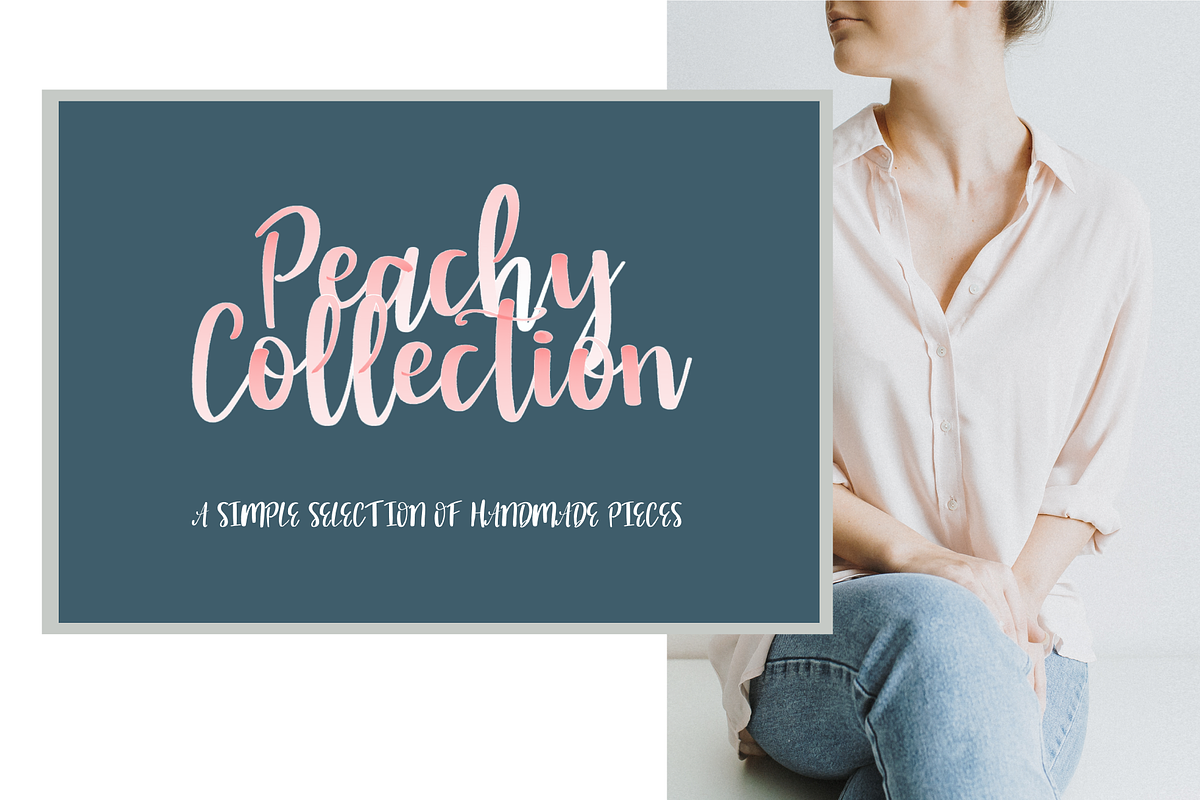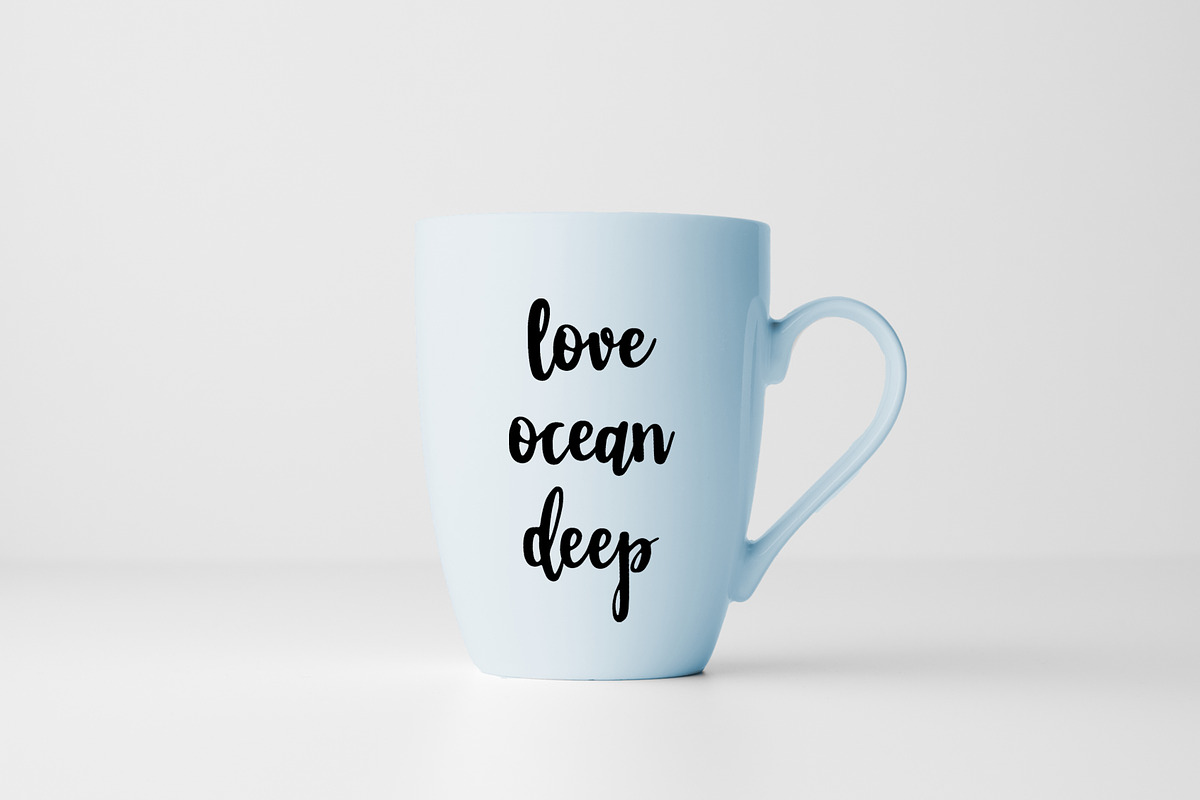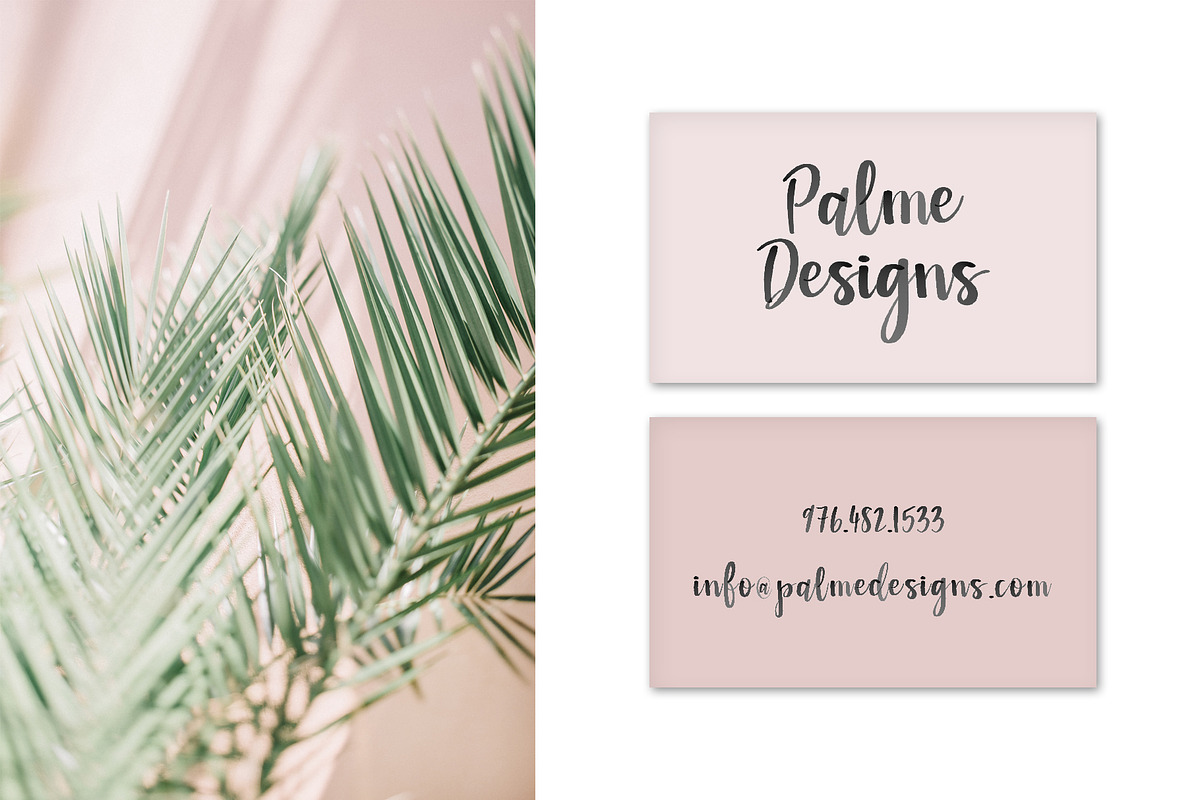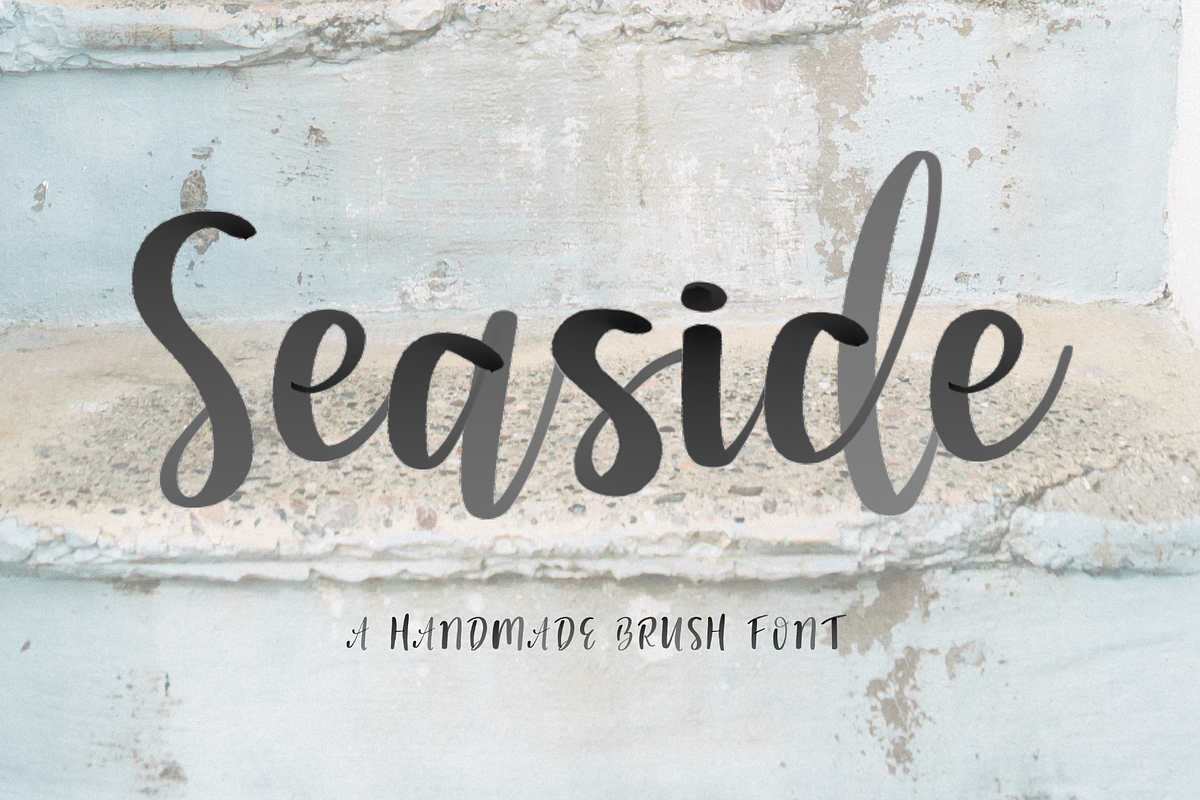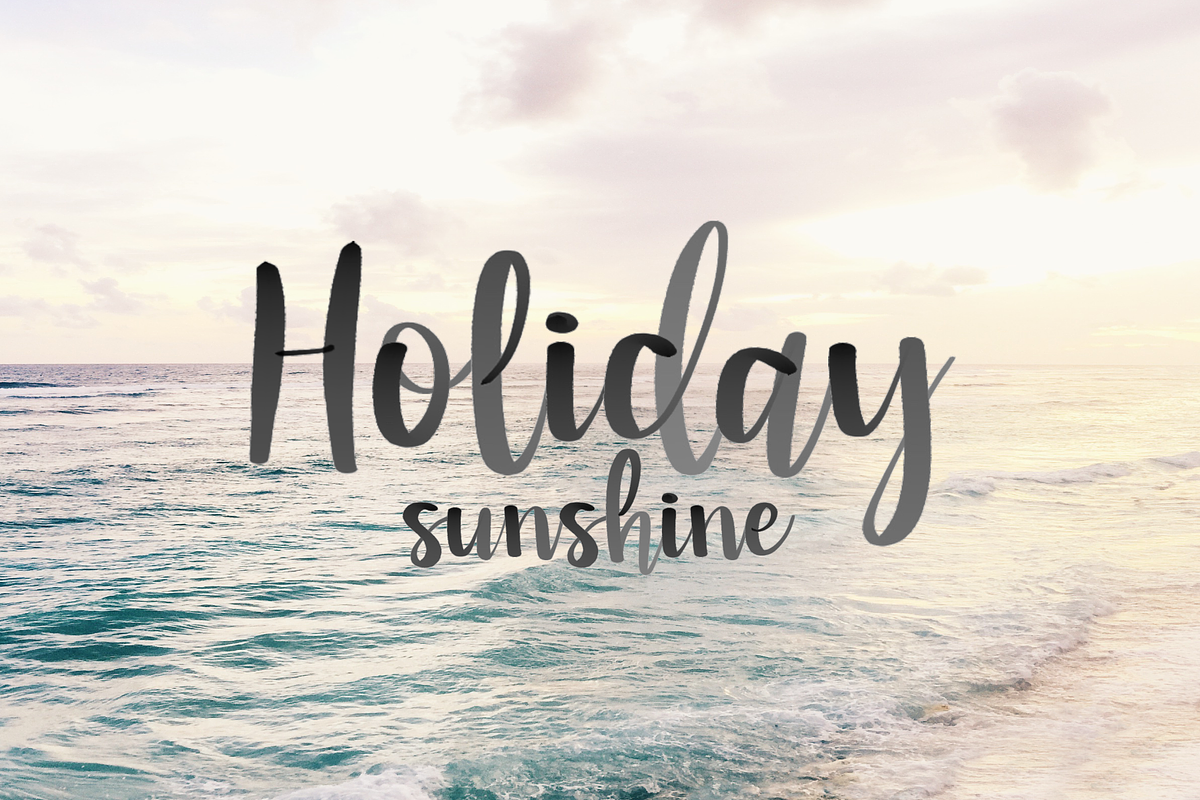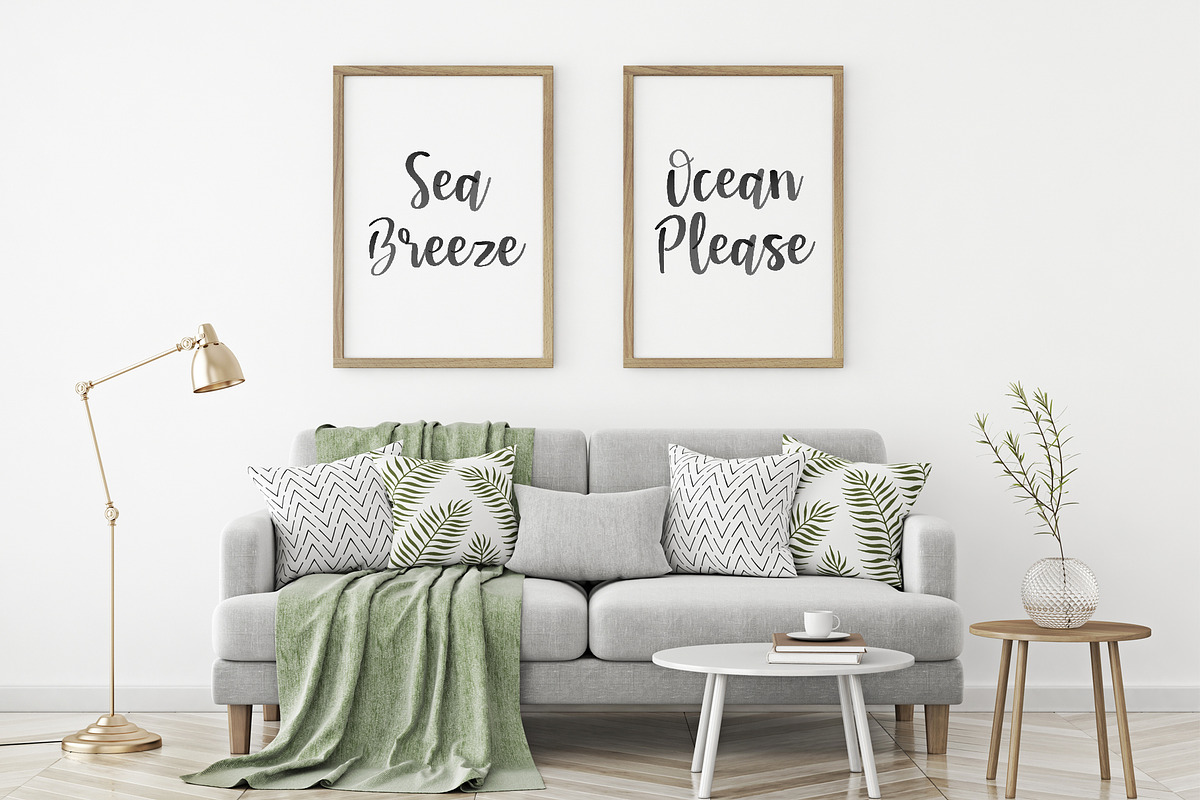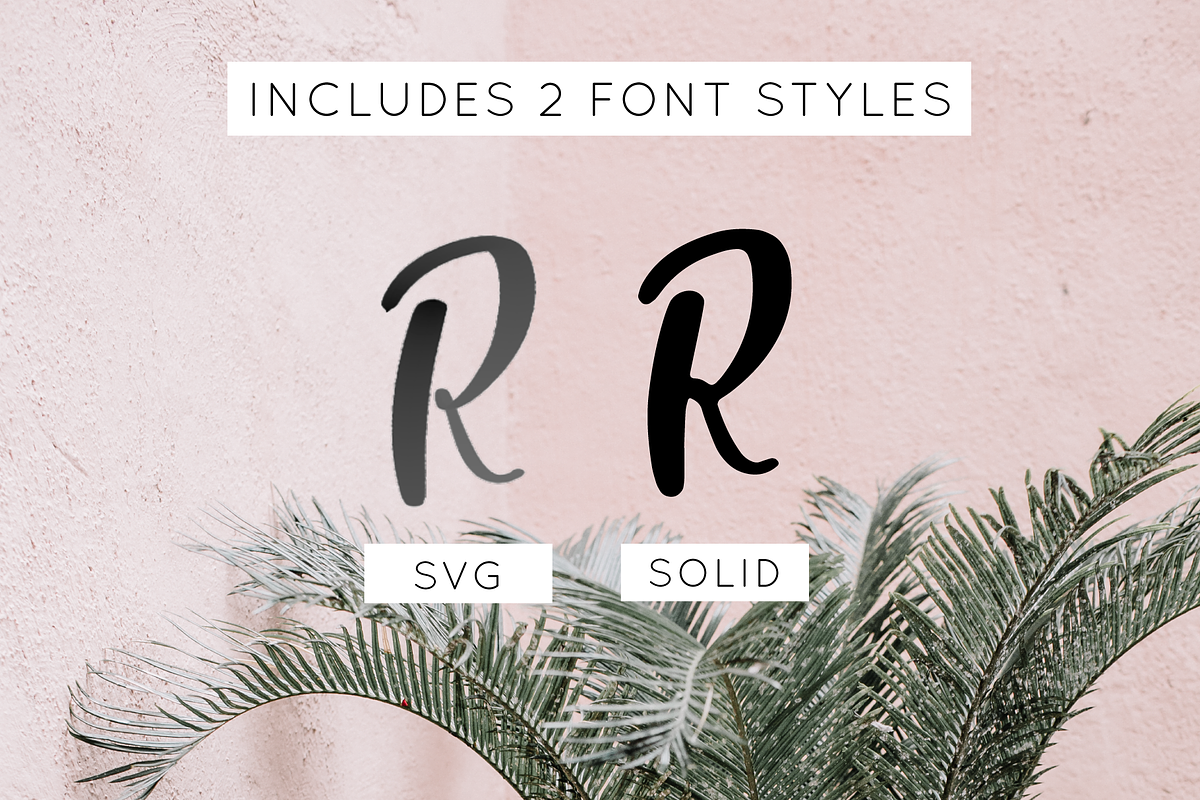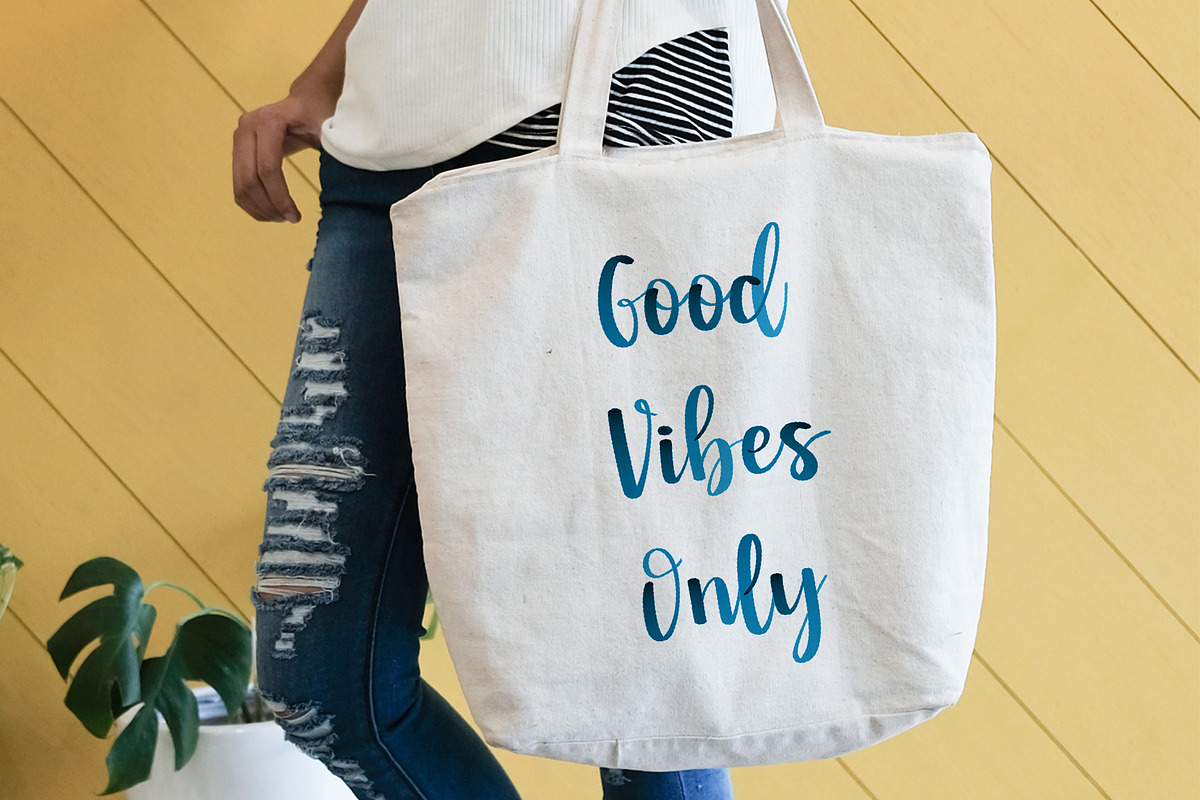
Seaside Font + Watercolor SVG
Give my new Seaside Font Collection a warm welcome! This font is my very own watercolor brush writing. This was truly a labor of love and I hope you enjoy it as much as I do. The font collection includes two distinct upper and lower case font faces in addition to TWO font textures.
Seaside Texture OTF: This is an Open-Type SVG font which essentially means it keeps all that beautiful watercolor texture with it which allows for endless color and texture options!
Seaside Solid OTF + TTF + WEBFONT: This is the standard vector font that that you are used to using. This one is a solid so there is no texture to these letters. This can be used and installed on any versions of Photoshop and Illustrator because it's just a normal vector.
Seaside is currently English-only but I did throw in some multi-lingual symbols to get you started!